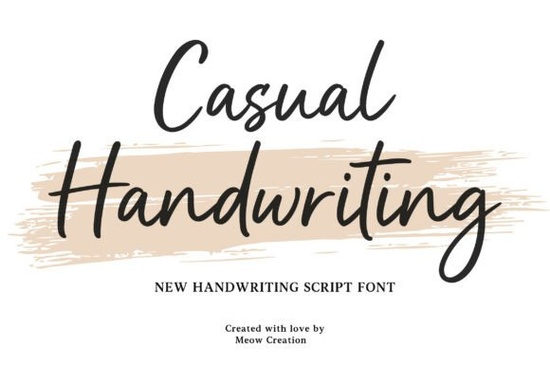
If you're looking for a relaxed, friendly handwritten font that works just as well on a T-shirt as it does in an Instagram story or wedding invitation, the Casual Handwriting Font is a thoughtful, low-fuss choice. It’s not overly decorative or fussy just clean, legible, and quietly expressive. You’ll notice how naturally it flows: soft curves, even spacing, and strokes that feel like they were drawn with a fine-tip marker rather than a calligraphy pen. That makes it especially useful if your projects lean toward modern minimalism, gentle branding, or everyday creative work like printable planners, small-batch labels, or social media graphics for local cafes or makers.
When does Casual Handwriting Font fit best?
This font shines where warmth and approachability matter more than formality. Think of it as the kind of typeface you’d choose for a handwritten note tucked into a gift box not a corporate annual report. It’s ideal for:
- Quotes and affirmations (especially for printables or wall art)
- T-shirt designs with short phrases or names
- Instagram carousel text overlays or Reels captions
- Wedding or baby shower invitations where elegance meets ease
- Small business branding like coffee shop chalkboard menus or boutique packaging
Because the letterforms are balanced and generously spaced, it stays readable even at smaller sizes unlike some script fonts that blur together when scaled down. That’s helpful if you’re designing for both digital screens and physical prints, or if you’re creating assets for clients who may not have design experience.
How does it compare to other popular script fonts?
Not all handwritten fonts behave the same way. Some are bouncy and energetic, others are delicate and ornate, and a few lean heavily into vintage or grunge aesthetics. Casual Handwriting sits comfortably in the middle: relaxed but not sloppy, personal but not childish. If you’ve used Dream Wish Font, you’ll recognize its gentler cousin less flourished, more grounded. It shares a similar rhythm with Saturday Font, though Saturday has slightly more contrast between thick and thin strokes. For something even softer and airier, Winky Swing Font offers a lighter, more playful bounce but Casual Handwriting holds up better in longer blocks of text or when paired with bold sans-serif headings.
It’s also noticeably more refined than Child Font, which leans into whimsy and rounded simplicity great for kids’ products, less suited for mature branding. And unlike Dirty Stroke Font, which embraces texture and imperfection, Casual Handwriting keeps things smooth and consistent, making it easier to pair with clean layouts or minimalist photography.
What kinds of projects get better results with this font?
You’ll get strong visual cohesion when pairing Casual Handwriting with neutral or muted color palettes think oatmeal, sage, warm gray, or soft terracotta. It also works well over light textures (like subtle paper grain or linen backgrounds) without competing for attention. Because it’s designed with everyday use in mind, it includes standard OpenType features like ligatures and alternate characters so you can add small variations without switching fonts. That helps avoid repetition in logos or repeated phrases across social posts.
For print-on-demand sellers, this font scales reliably across product mockups from mugs to tote bags to greeting cards. No awkward kerning fixes needed, and no surprise clipping on curved surfaces. Small businesses appreciate how quickly it conveys friendliness without needing extra design layers or illustrations.
Where can you see real examples of this font in action?
Many designers use Casual Handwriting Font alongside complementary sans-serifs like Montserrat or Poppins for balanced typography systems. Others layer it subtly behind watercolor elements or use it alone with generous margins for a calm, intentional look. You’ll often spot it in Etsy shop banners, Canva templates for coaches and creatives, and seasonal email headers for local florists or bakeries.
One practical tip: try setting body copy in a simple sans-serif and reserving Casual Handwriting for headlines, pull quotes, or short accent text. That keeps readability high while still letting the personality of the script shine through.
If you already have a few script fonts you reach for regularly, Casual Handwriting won’t replace them but it might become the one you open first when you want something that feels honest, unhurried, and quietly confident.